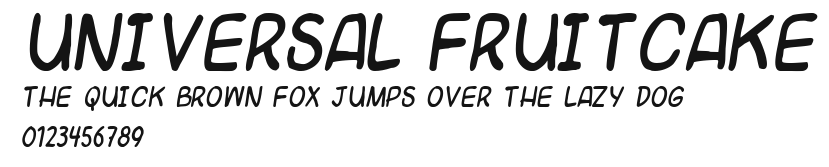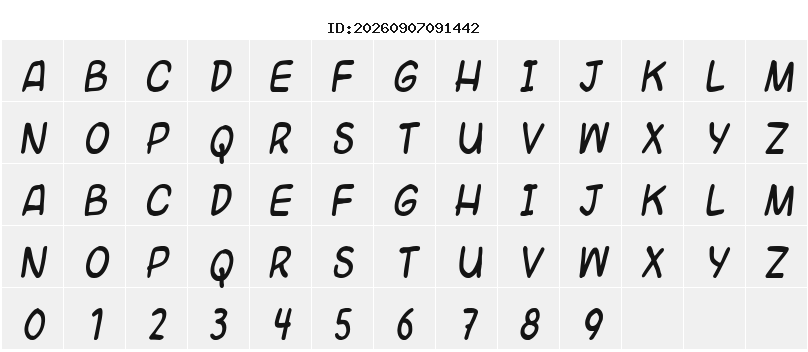
Universal fruitcake Preview
• Font Name: Universal fruitcake
• Font ID: Universal fruitcake
• Full Font Name: Universal fruitcake
• PostScript Name: Universalfruitcake
• Character Count: 156
About Universal fruitcake.ttf
Universal fruitcake.ttf is a modern, elegant sans-serif font designed for ultimate readability and visual harmony. Perfect for branding, headlines, web design, and print materials.